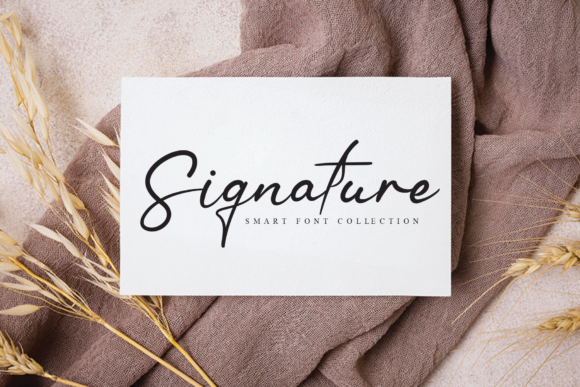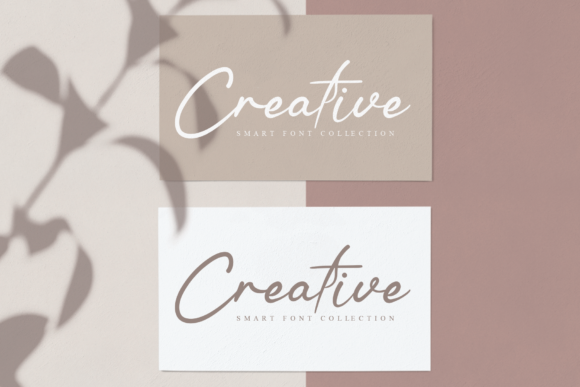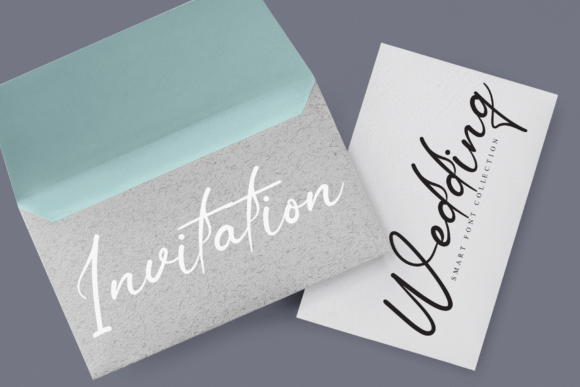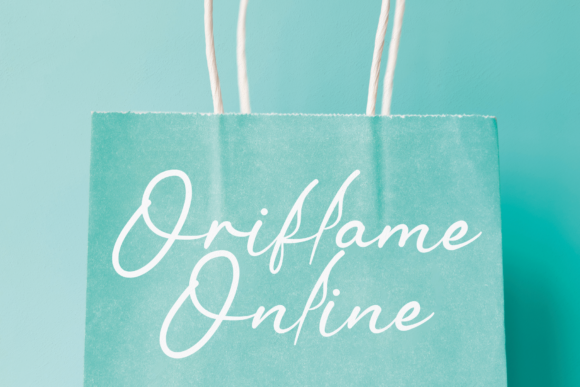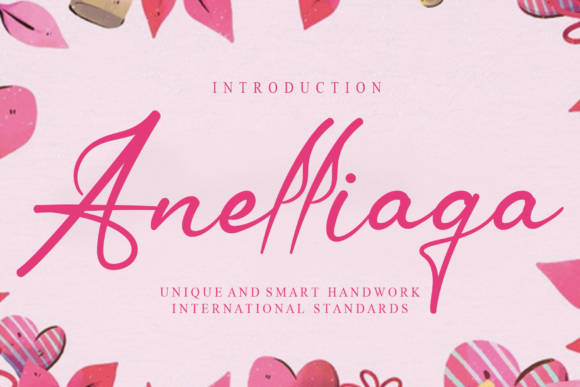
Unleash Your Creativity with Anelliaga Font
Have you ever found yourself staring at a blank page, wondering where to start with a new design project? You’ve got a vision in your mind, but it’s hard to put into words. This is where the magic happens – when you stumble upon the perfect font that speaks to your creative soul. For designers and artists, the right font can be the spark that sets off a chain reaction of inspiration.
Enter Anelliaga Font, a beautiful handwritten font that’s sure to captivate your imagination. This elegant script font is designed to add a touch of sophistication and personality to your designs. Whether you’re creating a logo, a brochure, or a social media post, Anelliaga Font is the perfect companion to help you bring your ideas to life. With its versatility and charm, it’s no wonder why designers are falling in love with this stunning font.
Anelliaga Font Key Features
- Font Family: Anelliaga Font is a unique, high-quality font family that includes multiple styles and weights.
- Unique Characteristics: Anelliaga Font features a distinctive, elegant design with intricate details and ornate flourishes, making it perfect for luxury branding, high-end packaging, and sophisticated typography.
Anelliaga Font Review
Anelliaga Font is a stunning display font that boasts an elegant, yet modern design. ✨ Its unique combination of circular and geometric shapes creates a captivating visual effect that’s perfect for headlines, titles, and other attention-grabbing elements.
Here are some of the things that work well with Anelliaga Font:
- ✨ Unique design: Anelliaga Font’s circular and geometric elements make it stand out from other fonts.
- ✨ Versatile: It can be used for both digital and print media, making it a great choice for a wide range of projects.
- ✨ Highly customizable: With its OpenType features, Anelliaga Font allows for a lot of customization options, making it easy to adjust the font to fit your needs.
- ⚠️ Limited legibility: At small font sizes, Anelliaga Font can become difficult to read due to its complex design.
- ⚠️ Limited font weights: Anelliaga Font only comes in a few font weights, which may limit its versatility in certain situations.
Overall, Anelliaga Font is a beautiful and unique font that can add a touch of sophistication to any design project. However, its limitations should be carefully considered before using it for critical or small-scale text.
For best results, use Anelliaga Font for headings and titles to add a touch of elegance to your design.
For best results, use Anelliaga Font for typography-heavy designs, such as logos or posters.
For best results, use Anelliaga Font for presentations or documents that require a touch of sophistication.
Anelliaga Font is perfect for:
Logo designs
Typography-heavy posters
Presentations and slideshows
Business cards and stationery
Any design that requires a touch of elegance and sophistication.
For optimal readability, we recommend using Anelliaga Font at a minimum size of 12 points for body text and 18 points for headings. However, the ideal font size may vary depending on the specific application and intended use.
Q: Can I customize the Anelliaga Font for my specific design needs?
Yes, Anelliaga Font is a highly customizable font that supports a wide range of OpenType features, including ligatures, swashes, and stylistic sets. You can also use font editing software to modify the font to suit your specific design requirements.